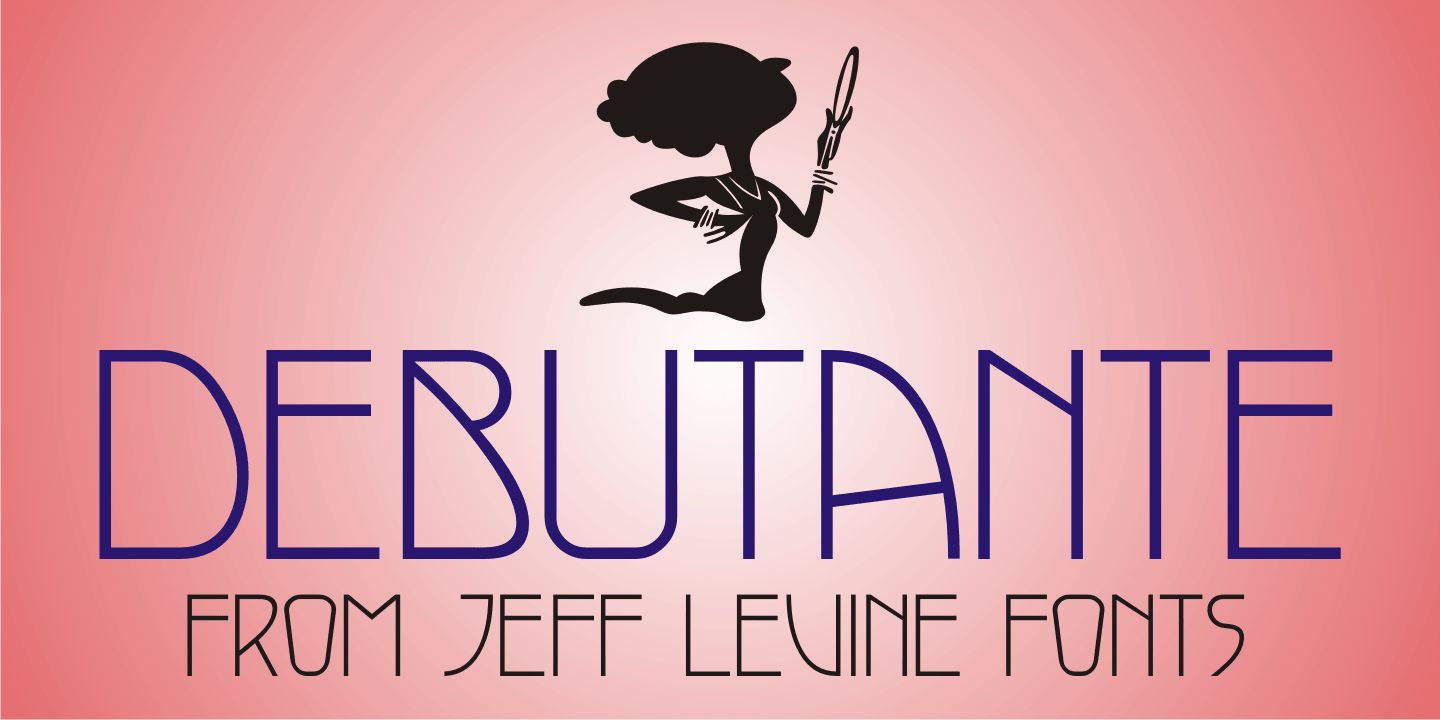
Debutante JNL is a art nouveau font published by Jeff Levine Fonts.
1920s Art Nouveau hand lettering from the sheet music for Puccini’s “Madame Butterfly” is the inspiration for Debutante JNL.